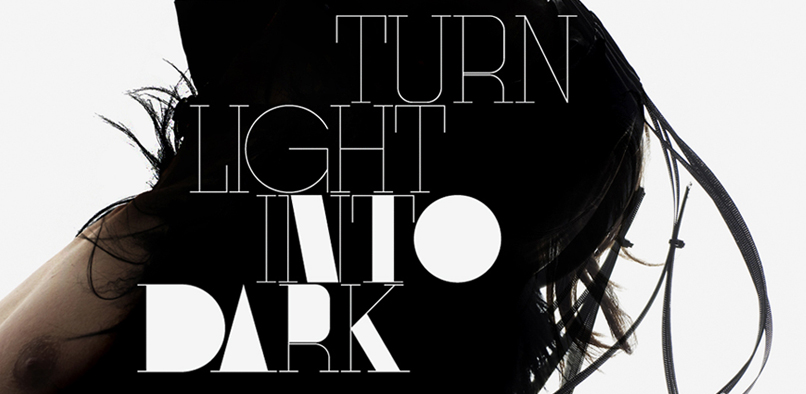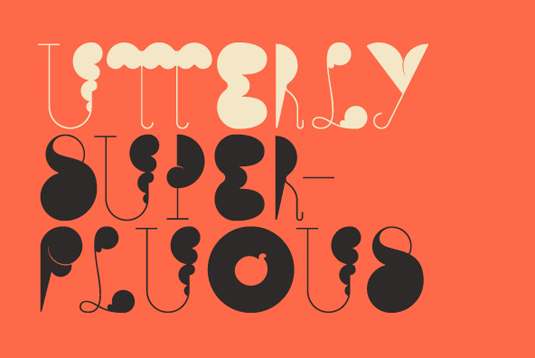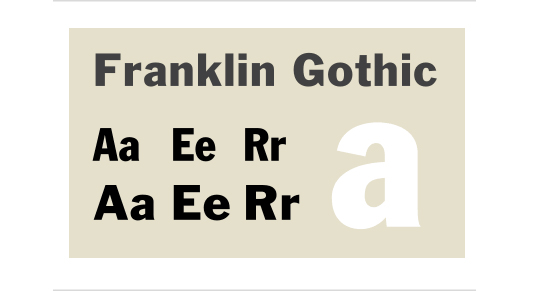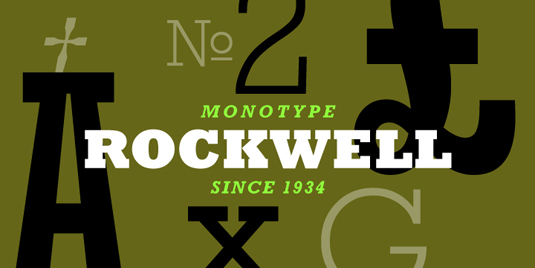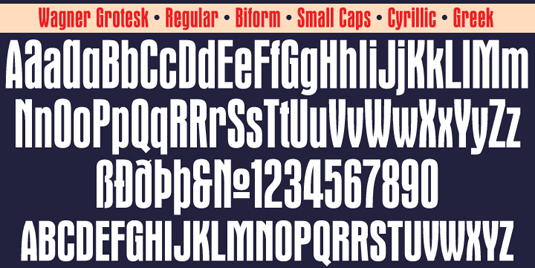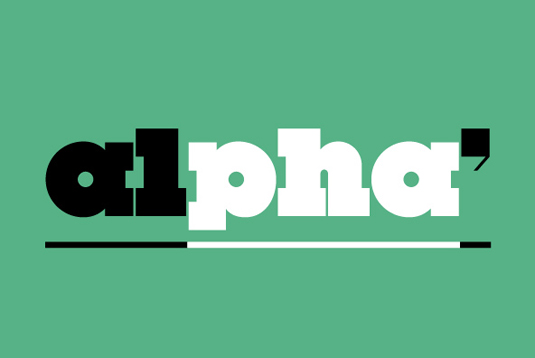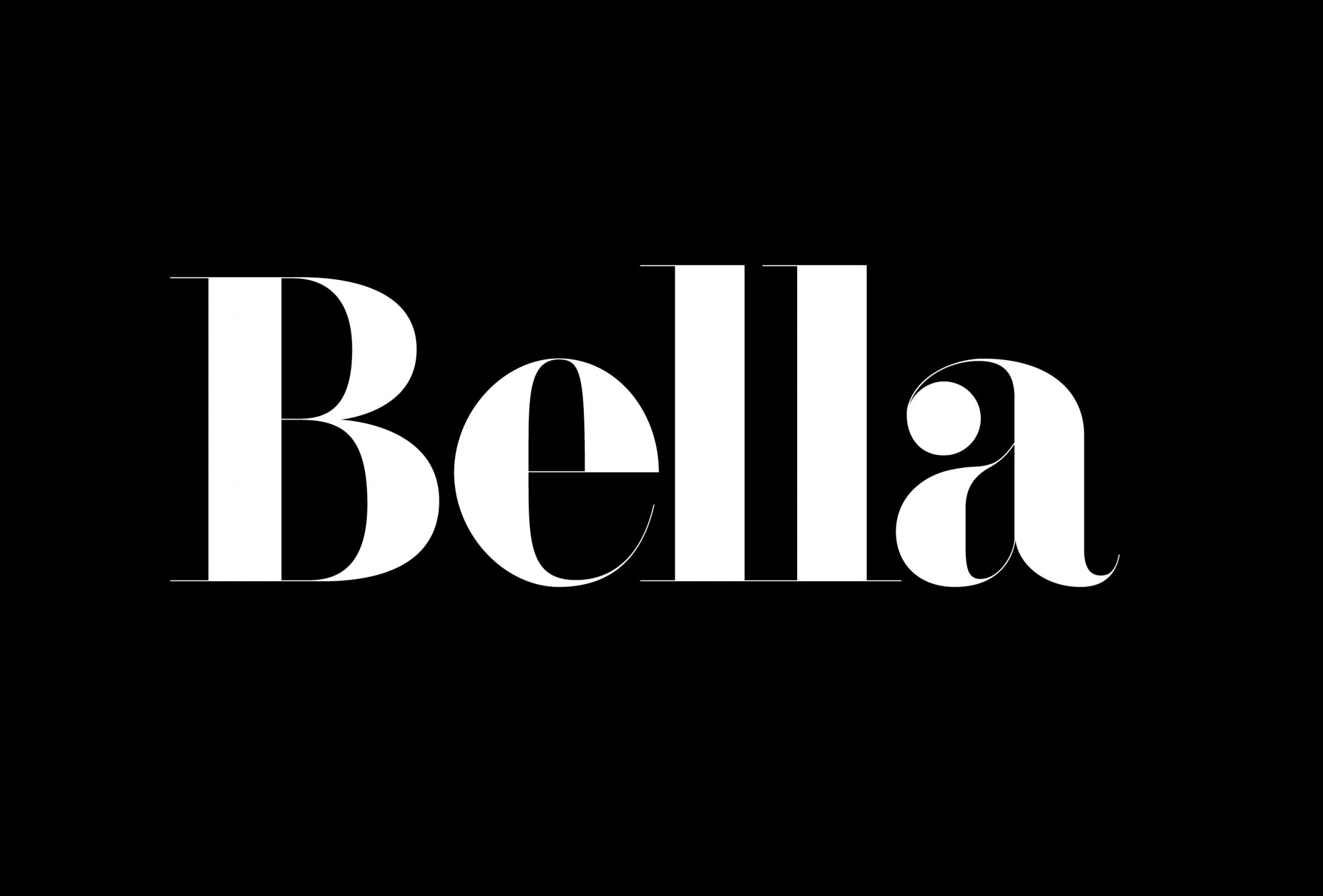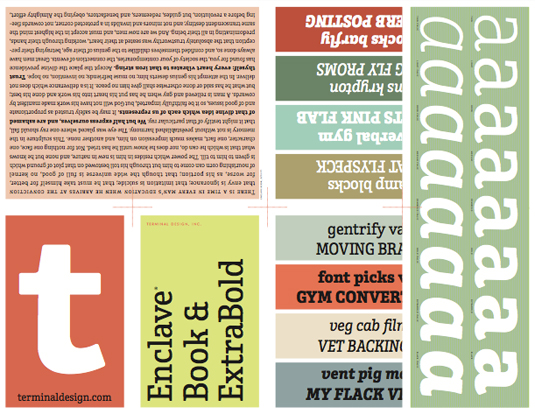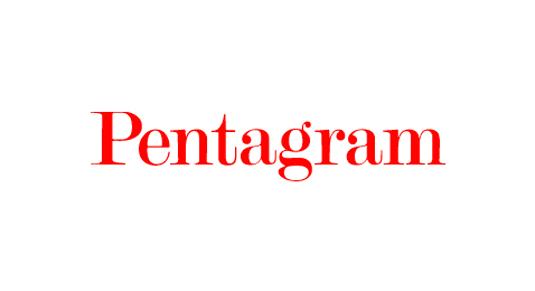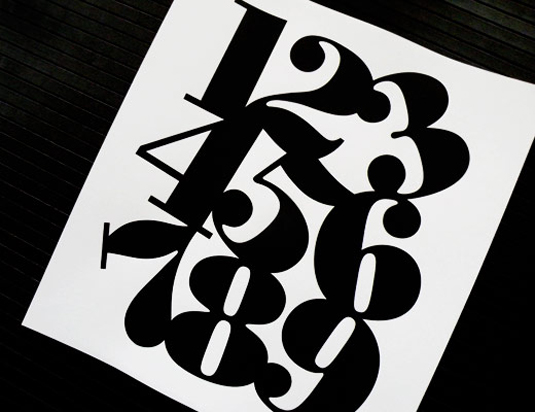
20 fonts every graphic designer should own
Renowned Italian designer Massimo Vignelli, creator of the classic American Airlines logo design, once said that designers use far too many typefaces. But with so many great free fonts around, it’s no surprise creatives collections are ever-growing.
Vignelli’s all-purpose toolkit features household names like Garamond, Bodoni, Helvetica, Univers, Futura, Caslon and Baskerville – between them spanning some three centuries of type design history. And few designers would disagree that all of the above are timeless, albeit well-worn classics.
But sometimes something a little different is required of a display face for that extra punch. Sometimes the ubiquitous serifs of Times New Roman just don’t quite cut it. Whatever your needs, the following list of top fonts that often get overlooked should really come in handy…
DISPLAY FONTS
F37 Bella
Bella display font
Bella is a classical Didot-inspired beauty
Based on letterforms of American typographers John Pistilli and Herb Lubalin, and Swiss typographer Jan Tschichold, F37 Bella is an award-winning display font by Rick Banks.
Designed in the classical French Didot style but with a contemporary geometrical twist, Bella contains alternatives and covers an extensive range of Latin-based languages, including Western and Eastern European.
Eames Black Stencil
Eames Black Stencil font
If you’re looking for a great stencil font, look no further than Eames Black Stencil
When you’re looking for a great stencil font that’s beautifully designed and not in the least bit cheap-looking or gimmicky, this House Industries favourite should be your first port of call. This top font is part of the broader Eames family, developed in homage to the late great Charles and Ray Eames – which comes in its own bespoke wooden packaging. The curves in the stencil font were inspired by the curvature of bent plywood.
Otto
Otto display font
Otto is Non-Format’s first commercially available font
Otto is a stunning font from talented design duo Non-Format. Featuring a combination of delicate lines with flashes of block colour, it’s a unique display font with two personalities that works well in large formats.
Poster Bodoni
Poster Bodoni font
This Bodoni display version from the 1920s is something extra special
Okay, so Vignelli already ticked Bodoni off the list – and a beautifully classy Didone-style serif it is too, thanks to the craft skills of Giambattista Bodoni in the late 18th century. But this display version from the 1920s is something extra special for setting large, high-impact type where the extreme contrast between the stem thickness really comes into its own. A top font that’s perfect for setting large, high-impact type where the extreme contrast between the stem thickness really comes into its own.
Cumulus & Foam
Cumulus & Foam font
This surreal display font combines simple, ultra-thin lines with bulbous, cloud-like forms
Designed by Stefan Kjartansson for YouWorkForThem, this utterly unique, quite surreal display font combines simple, ultra-thin lines with bulbous, cloud-like forms to give Cumulus & Foam its tagline, “the most beautifully grotesque font of our time.” Although Kjartansson proudly asserts that it doesn’t work as a typeface, this top font’s “ugly beauty” and “disciplined chaos” can certainly add character to a project.
SERIF FONTS
Linotype Didot
Didot font
Didot is great for adding a classic, timeless elegance to your work.
This Bodoni alternative was also developed in the late 18th century, and the mutual influence between the two contemporaries is apparent. Both share characteristic sharp, seductive serifs and harsh angles, but with more space allowed for its counterweight, Didot feels like a slimmer version of Bodoni. This top font is great for adding a classic, timeless elegance to your work.
Mrs Eaves
Mrs Eaves font
You may recognise Mrs Eaves from its use in the WordPress logotype
While its unconventional name may raise a few eyebrows, Emigre‘s versatile serif, designed by Zuzana Licko in 1996, is a subtle modern interpretation of the work of legendary 18th century type pioneer John Baskerville, and named after Sarah Eaves, the housekeeper who would become his wife. You may recognise it from its use in the WordPress logotype.
Bembo
Bembo font
Bembo was reborn under the Monotype label in 1929
A 20th century revival of an old-style serif originally cut by Francesco Griffo in the late 15th century, Bembo was reborn under the Monotype label in 1929. Widely considered a great typeface for setting book copy, this top font is generally best used to express traditional, formal beauty, and is particularly notable for its stylish italic ampersand.
Modern No 20
Top fonts
Modern No 20 is perfect for adding class to your designs
Designed by Stephenson Blake, this modern serif is excellent typographical shorthand for quality and refinement. Designed by Edward Benguiat for Bitstream, it’s perfect for adding class to titles the world over, but there’s no better testimonial than the fact it’s been employed for world-renowned design agency Pentagram‘s logotype.
Rooney
Rooney font
Rooney typeface has a friendly feel, without ever being too cheap and cheerful
One of a growing number of modern fonts earmarked as particularly effective for use on screen – particularly for apps and websites – Jan Fromm‘s Rooney typeface has a friendly feel, without ever being too cheap and cheerful. The subtle rounded serifs and terminals of this top font add personality and impact when used large, as well as having a softening effect when set in smaller sizes. It’s available in six weights.
SANS SERIF FONTS
Gotham
Gotham sans serif
Gotham is a no-nonsense sans-serif
Tobias Frere-Jones‘ assertive, geometric sans-serif was inspired by New York’s architectural signage of the mid-twentieth century. Initially commissioned by GQ magazine, Gotham has been used everywhere from Barack Obama’s 2008 presidential campaign to the One World Trade Centre, and is available in four widths.
AG Book Rounded
This sans serif has a considerably soft, informal feel
Although based on the root typeface Akzidenz-Grotesk – the late 19th century precursor to Helvetica, and indeed all modern sans serifs – this rounded version from Berthold has a considerably softer, more informal feel, generous spacing and large x-height, all of which combine to make it well-suited to easy reading in children’s books and advertising.
Franklin Gothic
Franklin Gothic font
Franklin Gothic can boast a broad range of weights to suit print, web and other purposes
Originally designed in 1903, redrawn in 1980 and finally updated in 1991, Franklin Gothic (or Grotesque in the US) can boast a broad range of weights to suit print, web and other purposes. Although it fell out of favour for a brief period in the 1930s after the introduction of European faces such as Futura, Franklin soon regained and maintained its popularity in the States, and is today a shoo-in for our list of top fonts.
Wagner Grotesk
Wagner Condensed
Wagner Condensed is particularly well-suited to screen use
Canada Type‘s original intention with this extensive redesign of Edel Gothic/Grotesque was to update, enhance and adapt the early 20th century typeface for use on digital platforms. Accordingly, Wagner Condensed is particularly well-suited to screen use, although its impact and legibility ensure it works hard on posters and in headlines too.
Hermes
Top fonts
An obvious choice for our list of top fonts, Hermes is available in a large range of weights and styles
A favourite among designers and an obvious choice for our list of top fonts, Hermes is available in a large range of weights and styles. In 1995, Font Bureau‘s Matthew Butterick updated an original German design from 1908 – maintaining the blunt corners that once signified wear and tear from the heavy industrial presses, but are now a distinctive characteristic of the modern Hermes typeface as we know it.
SLAB SERIF
Kondolar
Kondolar font
This top font work hard as a legible text face
Unexpected flourishes on certain characters give Cadson Demak‘s appealing slab serif something of a dual personality. This top font work hard as a legible text face, but used large enough, the sweeping descenders on the ‘K’, ‘Q’ and ‘R’ provide just the level of detail it needs to feel special enough to carry a headline.
Black Slabbath
Black Sabbath font
If you use Black Sabbath, use it big!
Besides Cumulus & Foam, this is Stefan Kjartansson’s other major claim to fame – the headline-stealing, self-proclaimed “heaviest typeface in the world”, with slivers of white space in between ultra-chunky geometric letterforms. Suffice to say, this one doesn’t function at any size below monster – but then if you use it, you’ll want it to roar.
Enclave
Enclave font
Enclave boasts thick, chunky slab serifs
Designed by Terminal Design‘s James Montalbano with the goal of being unique but still highly legible, Enclave boasts thick, chunky slab serifs that are nonetheless softened and subtly rounded to take some of the harsh edge off, and warmth, and stop it looking too much like a typewriter font. Another top font that works equally well large or as a text face.
Sentinel
Sentinel font
Sentinel was seen in President Obama’s 2012 campaign messaging
Based on Clarendon – one of the first and arguably most defining examples of a slab serif typeface, released in 1845 – Hoefler & Frere-Jones’ ‘slab serif that works’ overcomes many of the shortcomings of a traditional slab by integrating a broad range of weights, and carefully-designed italics, to ensure true versatility without compromising on style. This top font was seen in President Obama’s 2012 campaign messaging.
Rockwell
Rockwell font
Rockwell demonstrates what strong, thick, edgy serifs can do
One of the best-known examples of the slab serif genre, Rockwell demonstrates what strong, thick, edgy serifs, bold shapes and opposing curves can do to add clout and impact to a typeface. This top font is effective in capitals for a statement headline piece, but also features beautiful lower case forms for more versatile uses.